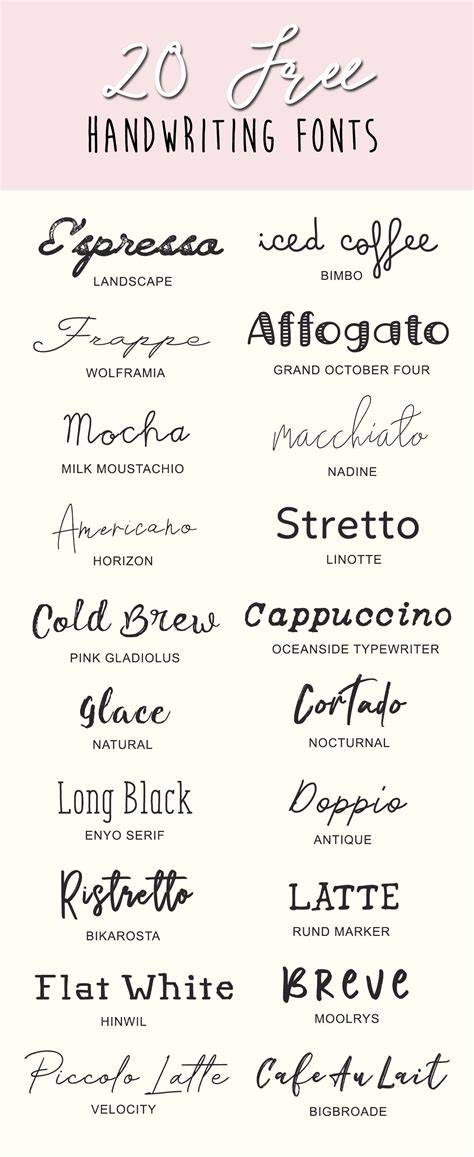
A Guide To Handwriting Fonts In 2023
If you’re looking for a personal touch in your projects, then consider using handwriting fonts. In 2023, handwriting fonts are becoming more popular than ever, as people are looking for ways to stand out from the crowd and add a unique touch to their work. Whether you’re designing a logo, creating a website, or crafting a physical product, handwriting fonts can help you make a memorable impression. In this guide, we’ll discuss the basics of handwriting fonts and explore some of the best options available in 2023.
What is a Handwriting Font?
A handwriting font is a typeface that imitates the style of natural lettering, as if it were written by hand. Handwriting fonts come in a variety of styles, from neat and tidy to casual and carefree. They are often used to create a personalized look, to give a project a human touch, or to mimic someone’s actual handwriting. Handwriting fonts can also be used to create a more casual and informal look, or to give a project a bit of personality.
Choosing the Right Handwriting Font
When selecting a handwriting font, it’s important to consider the style of the font and how it will look in the context of your project. If you’re using the font for a logo, for example, you may want to choose one with clean lines and a professional look. If you’re creating a website, you may want to pick a font with a more natural and casual feel. It’s also important to consider the legibility of the font, as some styles may be difficult to read at smaller sizes.
Best Handwriting Fonts in 2023
There are a variety of handwriting fonts available in 2023, ranging from free options to premium fonts. Some of the most popular handwriting fonts in 2023 include:
- Strawberry Kisses – This playful font has a light, carefree feel. It’s perfect for creating logos, websites, or physical products that need a fun and whimsical touch.
- Fancy Script – This font has a neat, professional look that’s perfect for logos, business cards, and other formal projects.
- Quick Pencil – This font has a more casual feel, with messy lines and a bit of personality. It’s perfect for creating a website or blog with a unique and personal look.
- Blueberry Cakes – This font is a bit more formal than the others, with a neat, tidy look that’s perfect for logos, business cards, and other formal projects.
Using Handwriting Fonts in Your Projects
When using handwriting fonts in your projects, it’s important to consider how the font will look in the context of the project. For logos and other formal projects, you may want to choose a font with a neat, professional look. For websites and other informal projects, you may want to choose a font with a more casual and carefree feel. It’s also important to consider the legibility of the font, as some styles may be difficult to read at smaller sizes. Finally, remember to have fun with it and let your personality shine through.